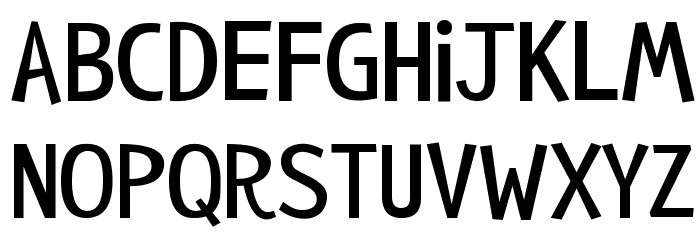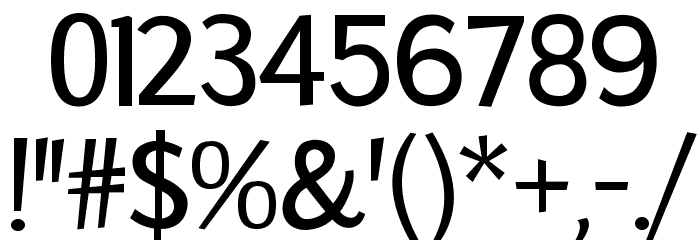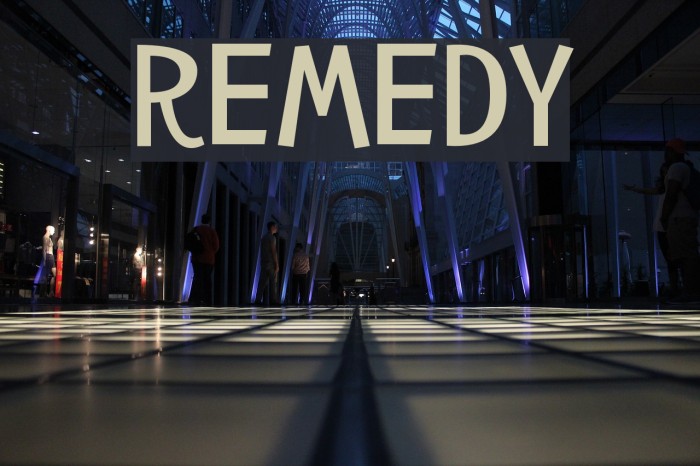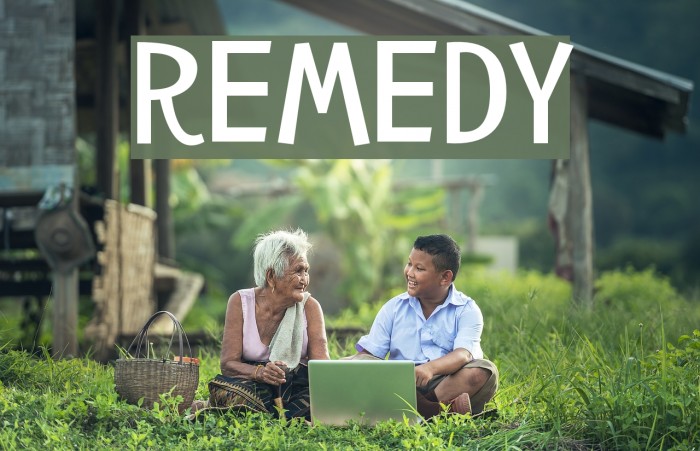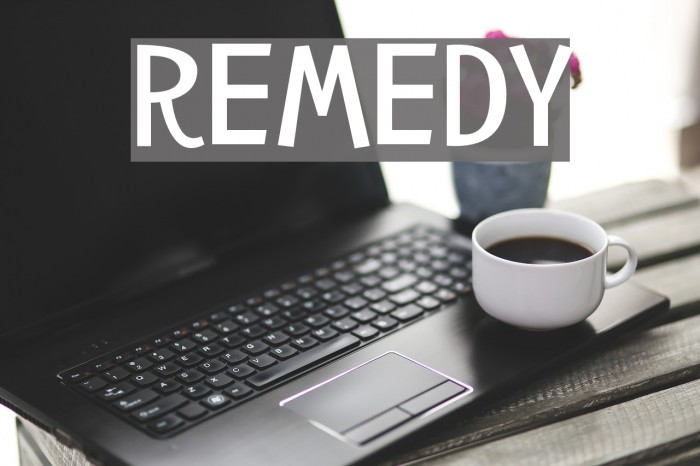
Remedy Font
This font exhibits a clean and modern sans-serif style, characterized by its geometric shapes and uniform stroke widths. The uppercase and lowercase letters maintain a consistent height, providing a balanced and harmonious appearance. The numerals are clear and legible, making them suitable for various applications. The special characters are well-designed, complementing the overall aesthetic of the typeface. Its simplicity and clarity make it versatile for both digital and print media, ensuring readability across different sizes and formats.
A modern, geometric sans-serif font with uniform strokes and excellent readability.
- Proposed Projects: Ideal for branding, web design, advertising, and editorial layouts due to its clean and modern appearance.